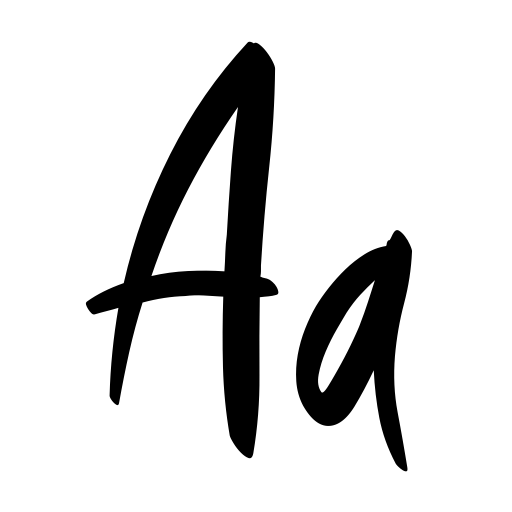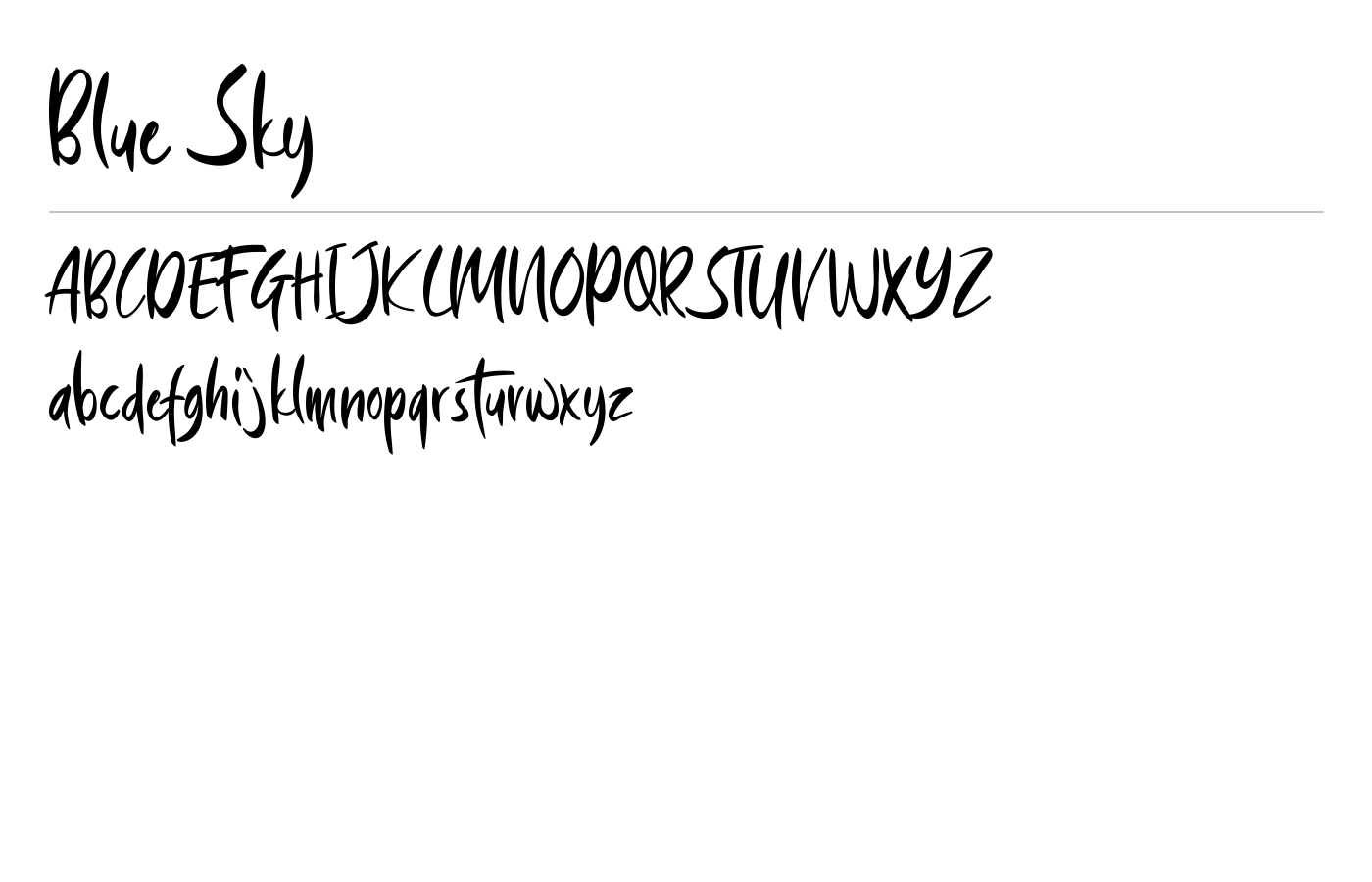
Blue Sky is a lively handwritten script font with a playful and casual feel, featuring varied stroke widths that mimic natural penmanship. Its tall, slightly condensed letterforms and unique character shapes give it a friendly, informal personality, making it ideal for creative projects, personal branding, or inviting headlines. This font works best where a personal touch or expressive style is needed, such as invitations, logos, or social media graphics.
Blue Sky Font
About Blue Sky Font
| Font family | Blue Sky Font |
| Designer | Hallotudio |